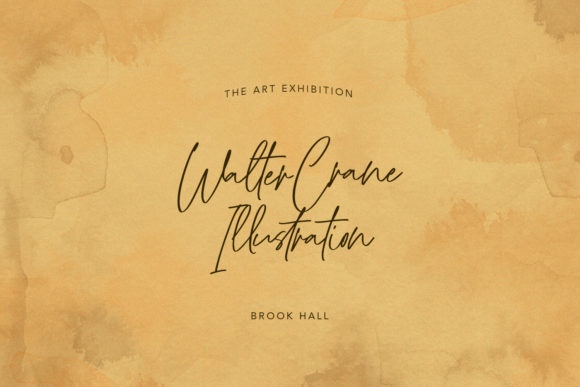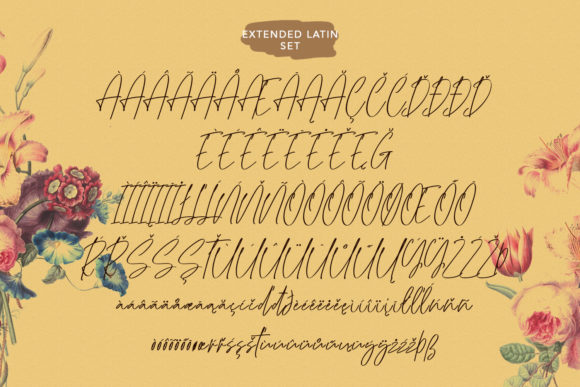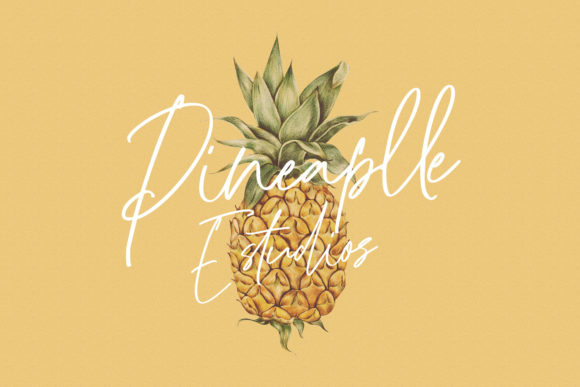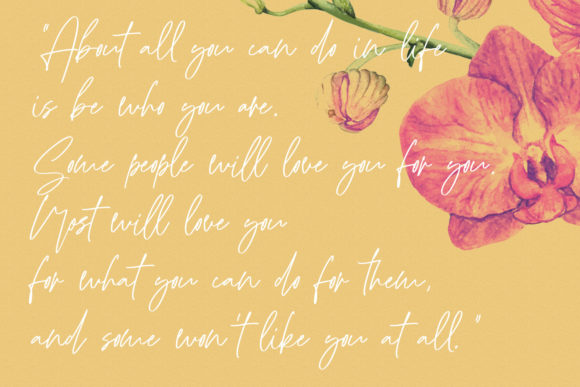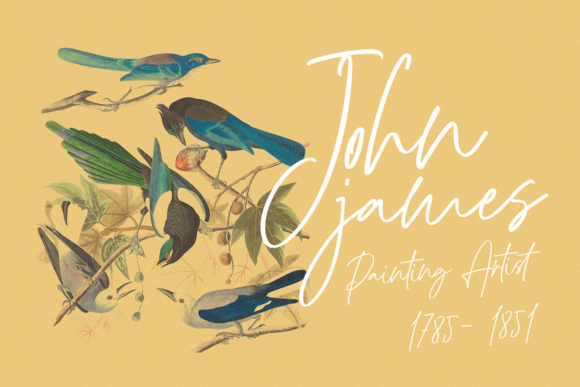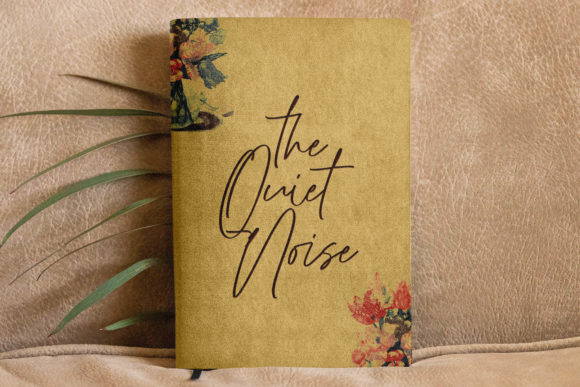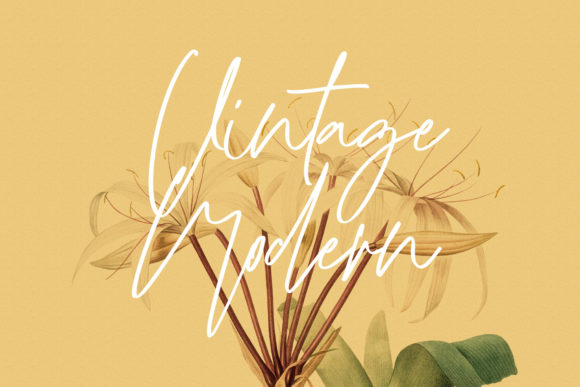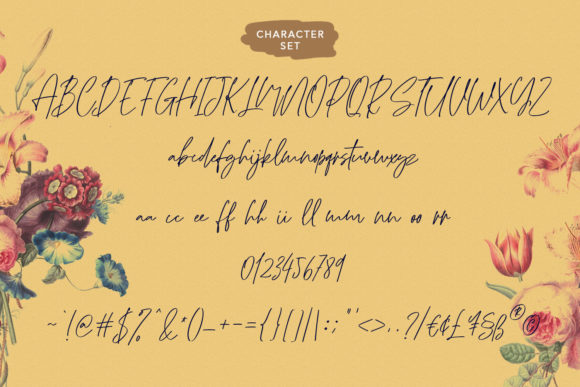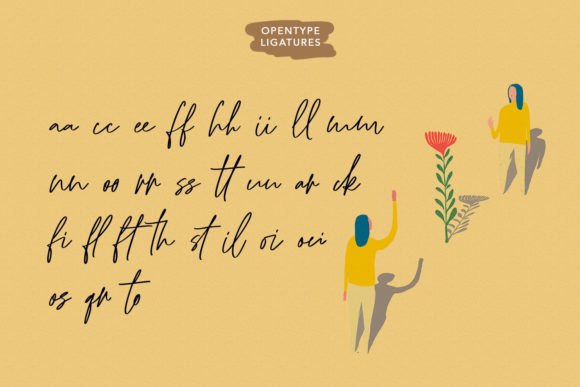
Wollyroots Font
About Wollyroots Font
Wollyroots is a delightful and versatile script font that adds a touch of sweetness and charm to any design. With its thin and delicate letterforms, this font brings a sense of elegance and playfulness to your projects.
The sweet nature of Wollyroots makes it a wonderful asset for a wide range of topics and design purposes. Whether you’re working on branding, packaging, invitations, or social media graphics, Wollyroots adds a touch of whimsy and sophistication. Its adaptability allows it to enhance various creations, making it a valuable addition to your font library.
The thin letterforms of Wollyroots exude a graceful and refined quality, creating an effortlessly elegant look. The subtle curves and flowing strokes give the font a sense of fluidity and movement, making it visually appealing and captivating. Whether used for headlines or body text, Wollyroots maintains legibility and readability while adding a touch of personality to your designs.
The adaptability of Wollyroots is one of its standout features. It can be paired with other fonts to create beautiful typographic combinations or used on its own to make a statement. From romantic and feminine designs to whimsical and playful themes, Wollyroots adapts to various styles and moods, allowing you to create unique and eye-catching designs.
Overall, Wollyroots is a thin lettered, sweet, and adaptable script font that has the potential to enhance any creation. Its delightful and versatile nature makes it a valuable asset in your font library. Embrace the charm and elegance of Wollyroots and let it bring a touch of sweetness to your designs.